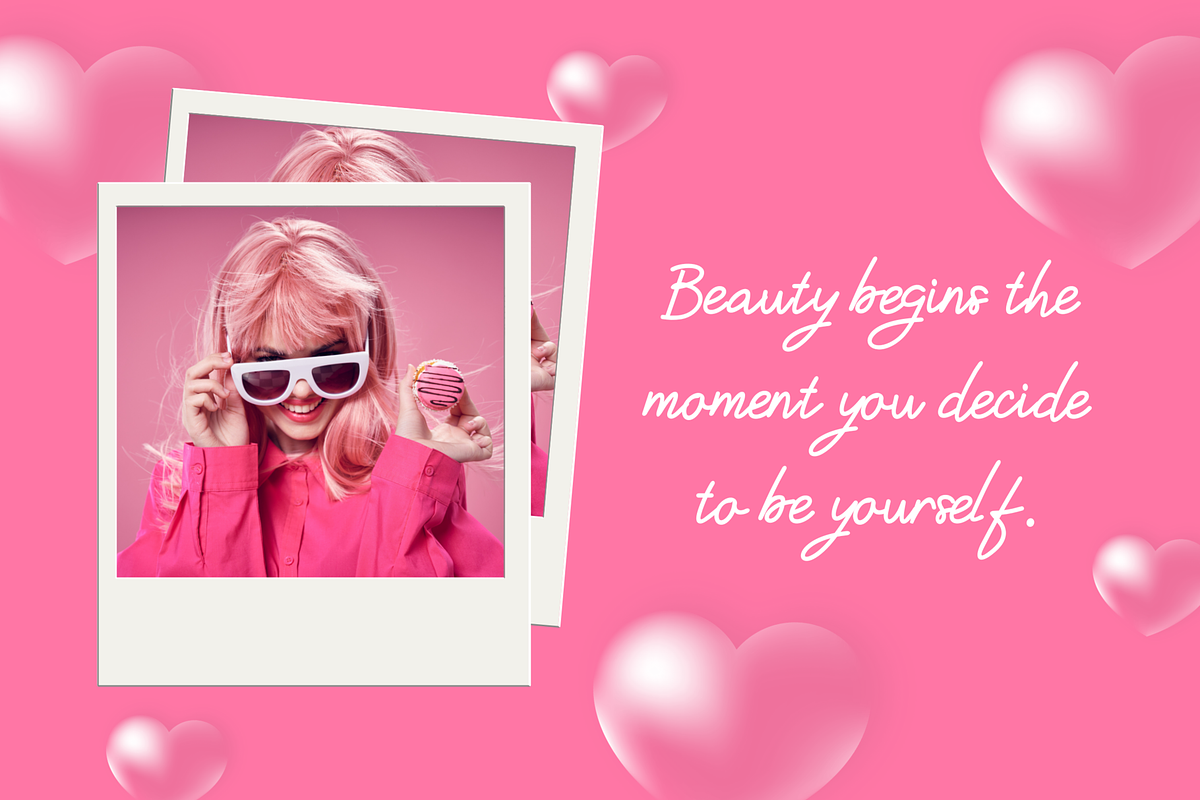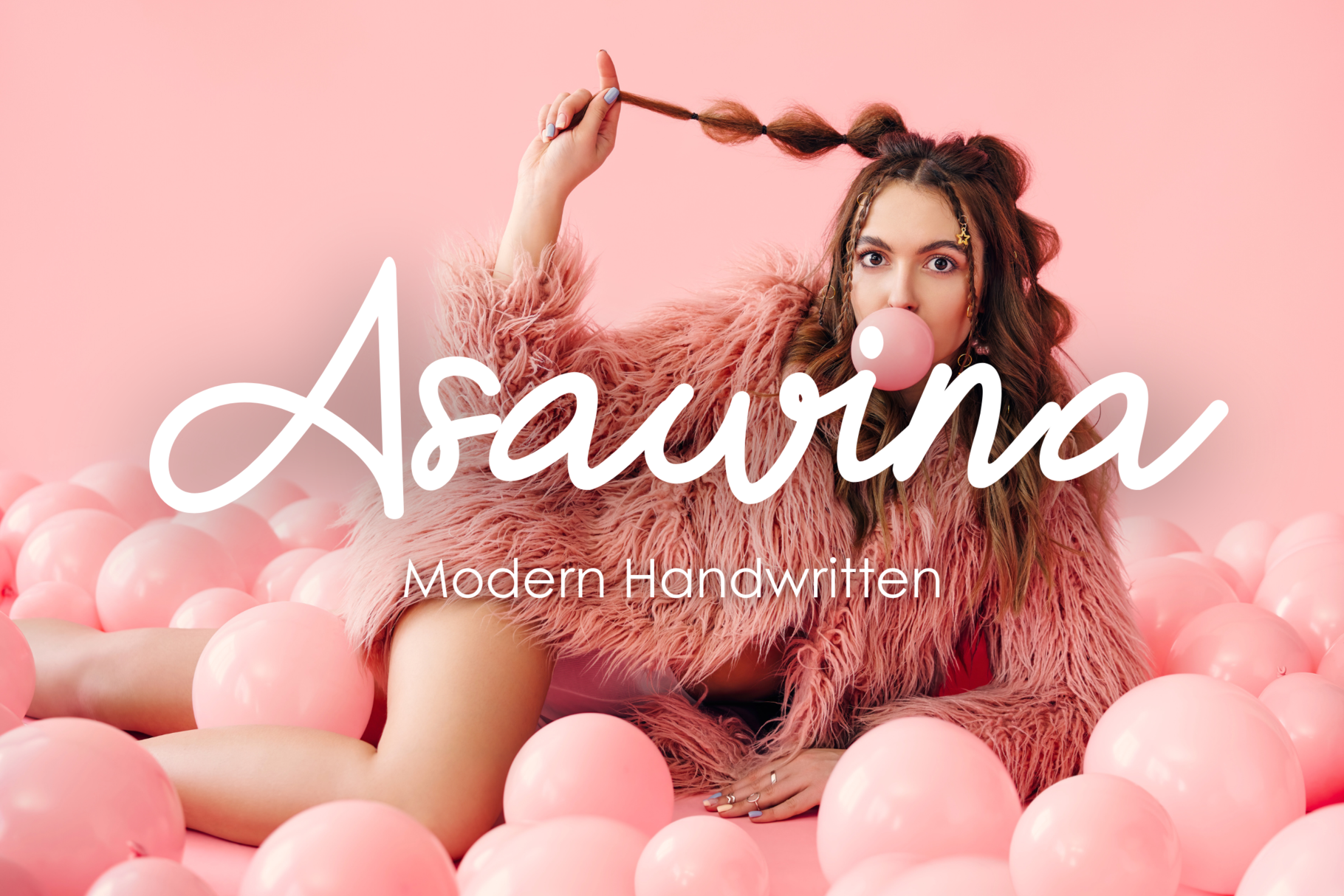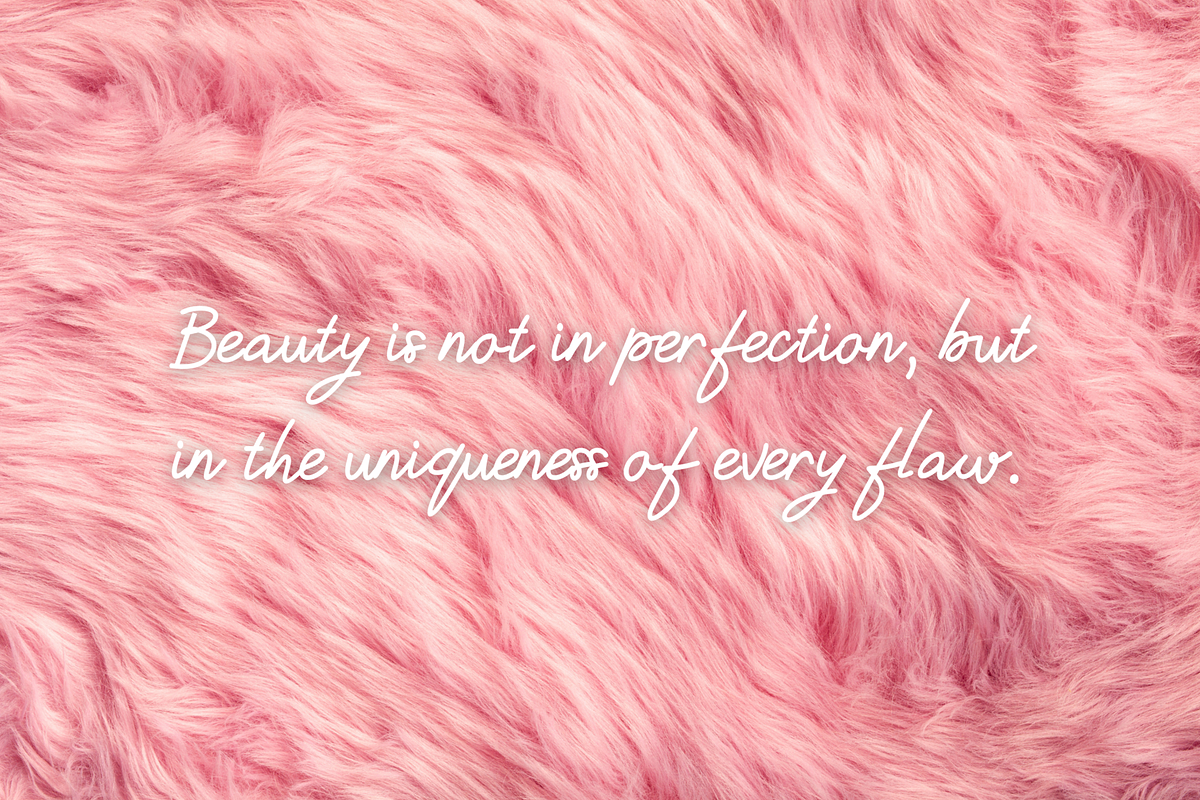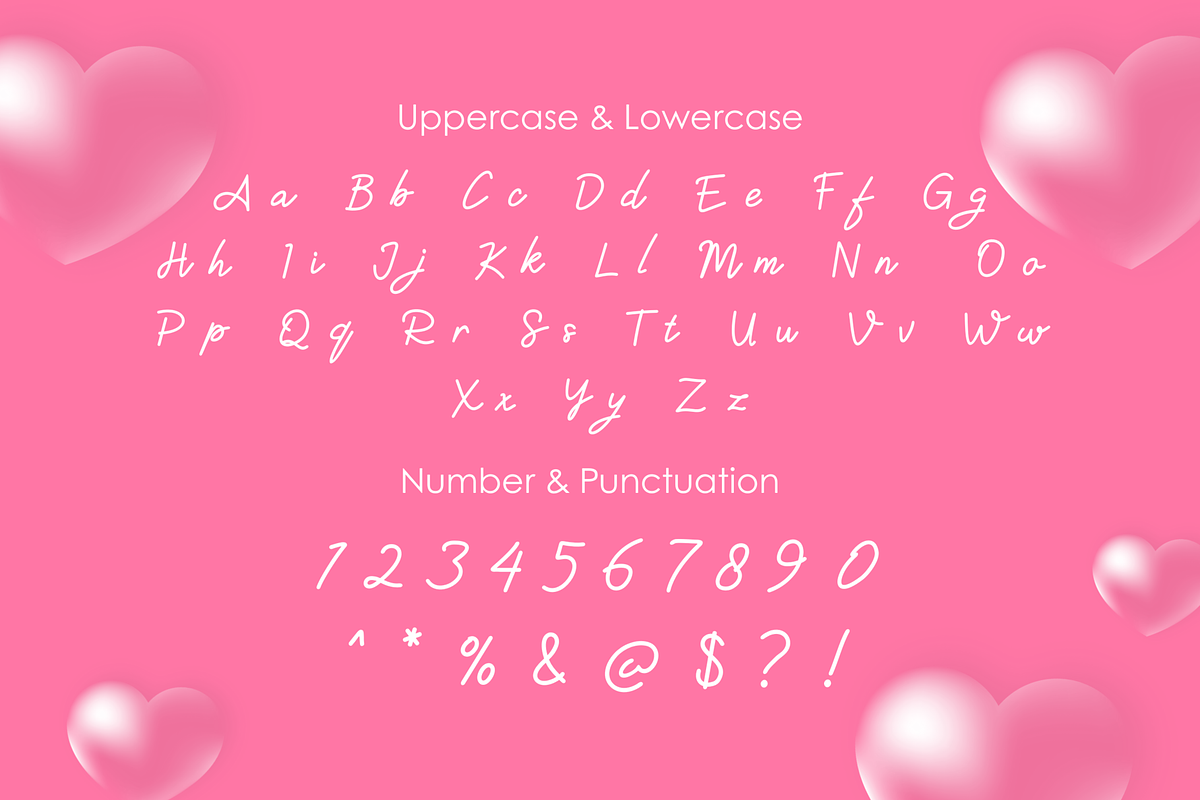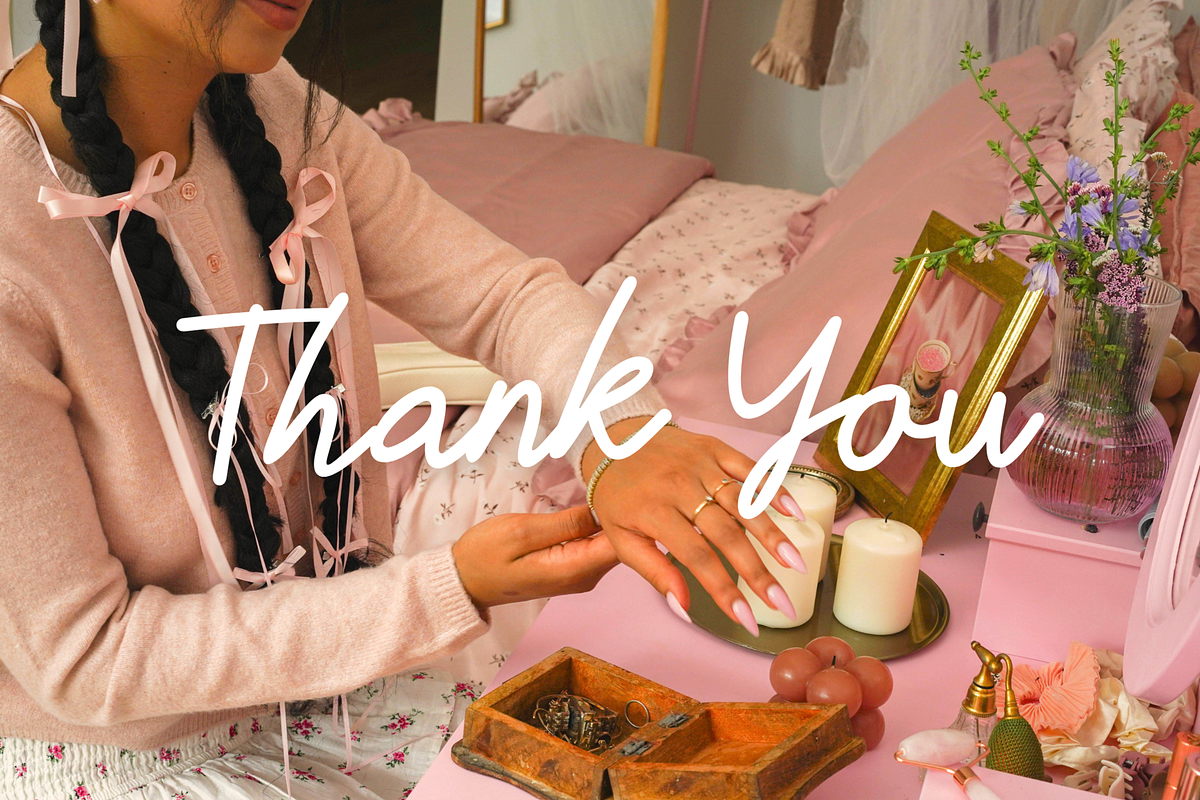
Asawina | Modern Handwritten Font
Asawina is a handwritten Font that adds a playful twist to any design. With its whimsical letterforms and unique charm, it's perfect for eye-catching headlines, vibrant posters, and playful branding projects. Infuse your creations with joy and personality with Asawina!
- Uppercase Characters
- Lowercase Characters